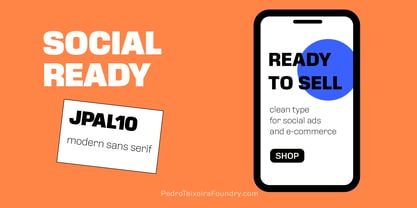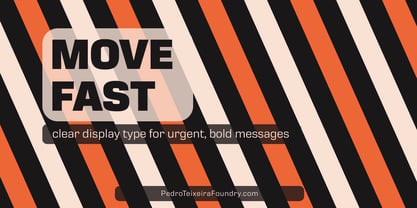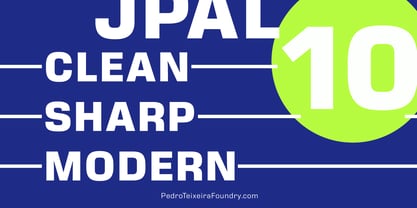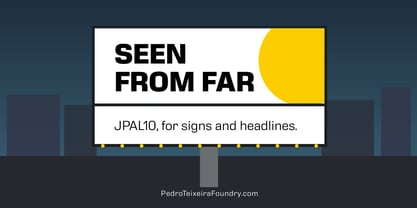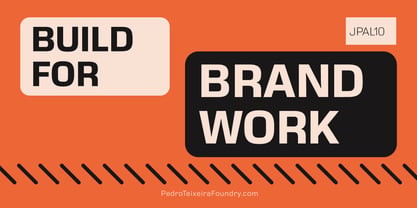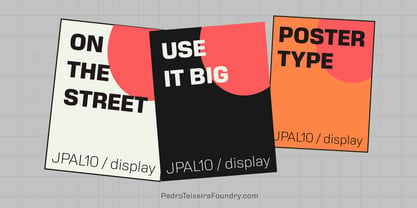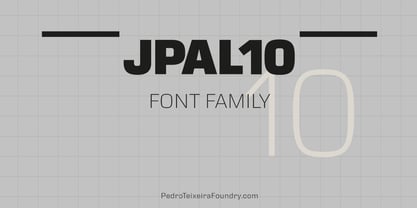
Jp Al10
by Pedro Teixeira
The Jp Al10 Font Family was designed by Pedro Teixeira and published by Pedro Teixeira. Jp Al10 contains 8 styles and family package options. More about this family
JPAL10 is an industrial display sans serif built for headlines that need instant impact. Clean, bold and highly visible, it is made for posters, signage, branding, advertising, logos, packaging, social media creatives and e-commerce graphics. The family combines a modern sans serif structure with an urban, functional attitude, helping short messages read fast from a distance while staying crisp on screen. With seven weights from Light to Black, JPAL10 gives designers the range to move from supporting copy and subheads to bold titles, campaign statements and strong brand moments. Use it when you need a contemporary sans with confident presence, commercial clarity and sharp visual energy.
Designers: Pedro Teixeira
Foundry: Pedro Teixeira